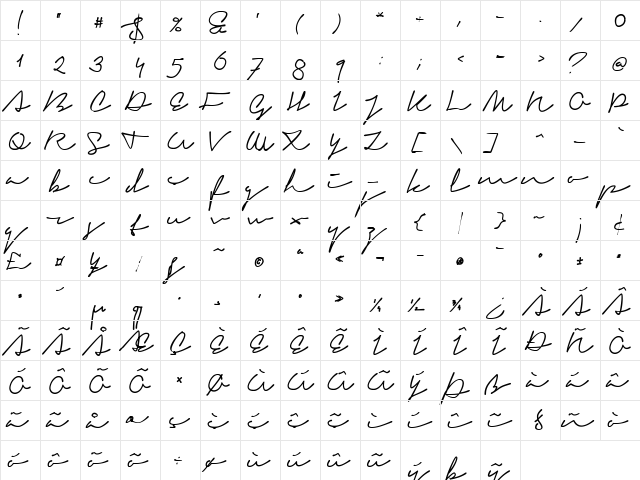
Signerica Fat Regular
Design Context for Signerica Fat Typeface
Signerica Fat is a composed and adaptable typeface that performs quietly and consistently across a wide range of design contexts.